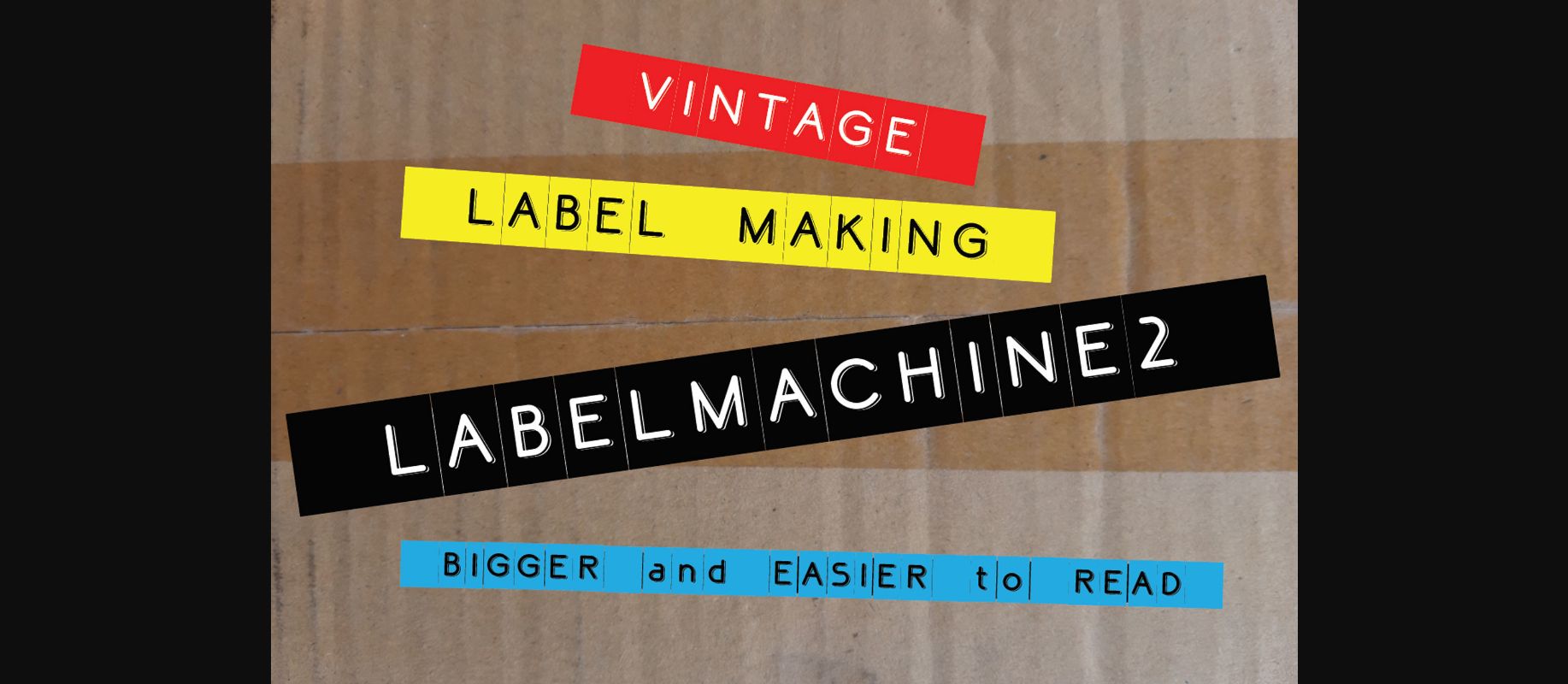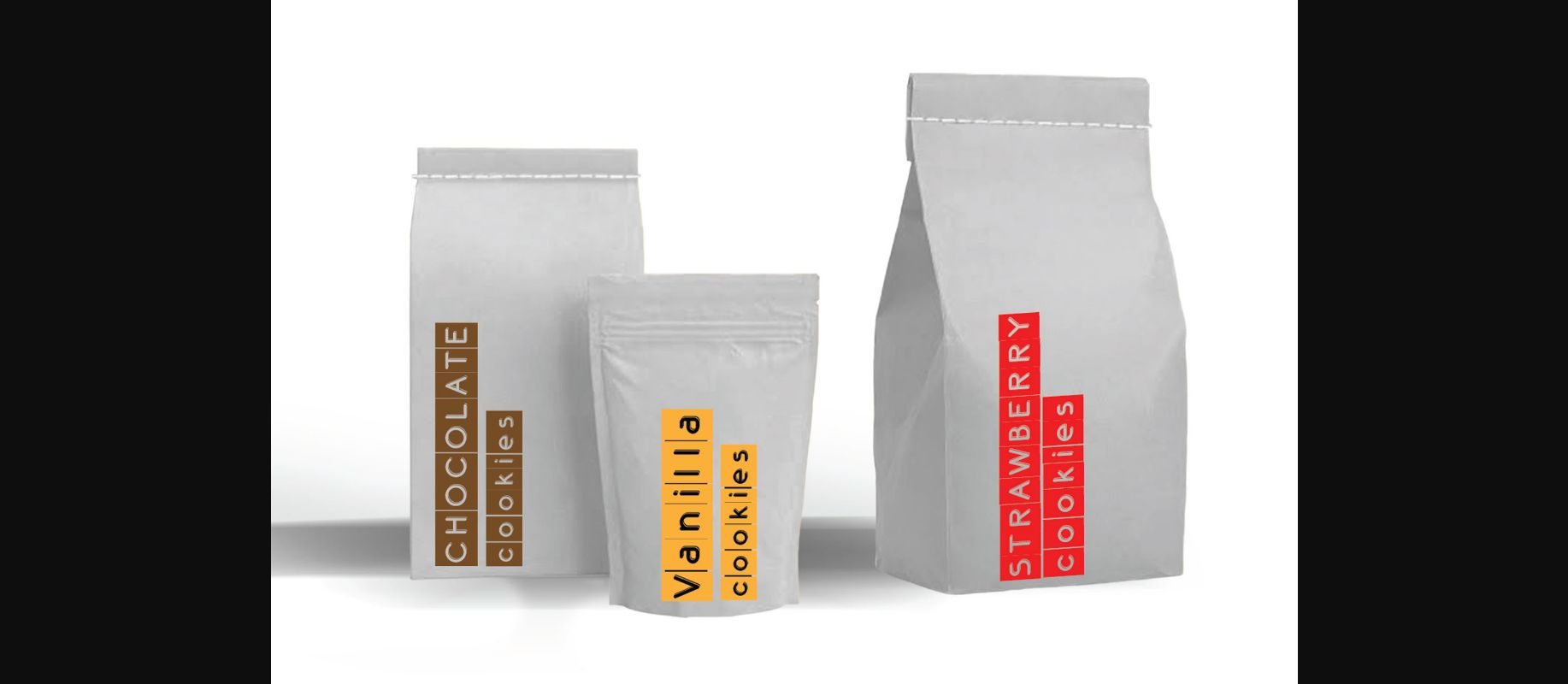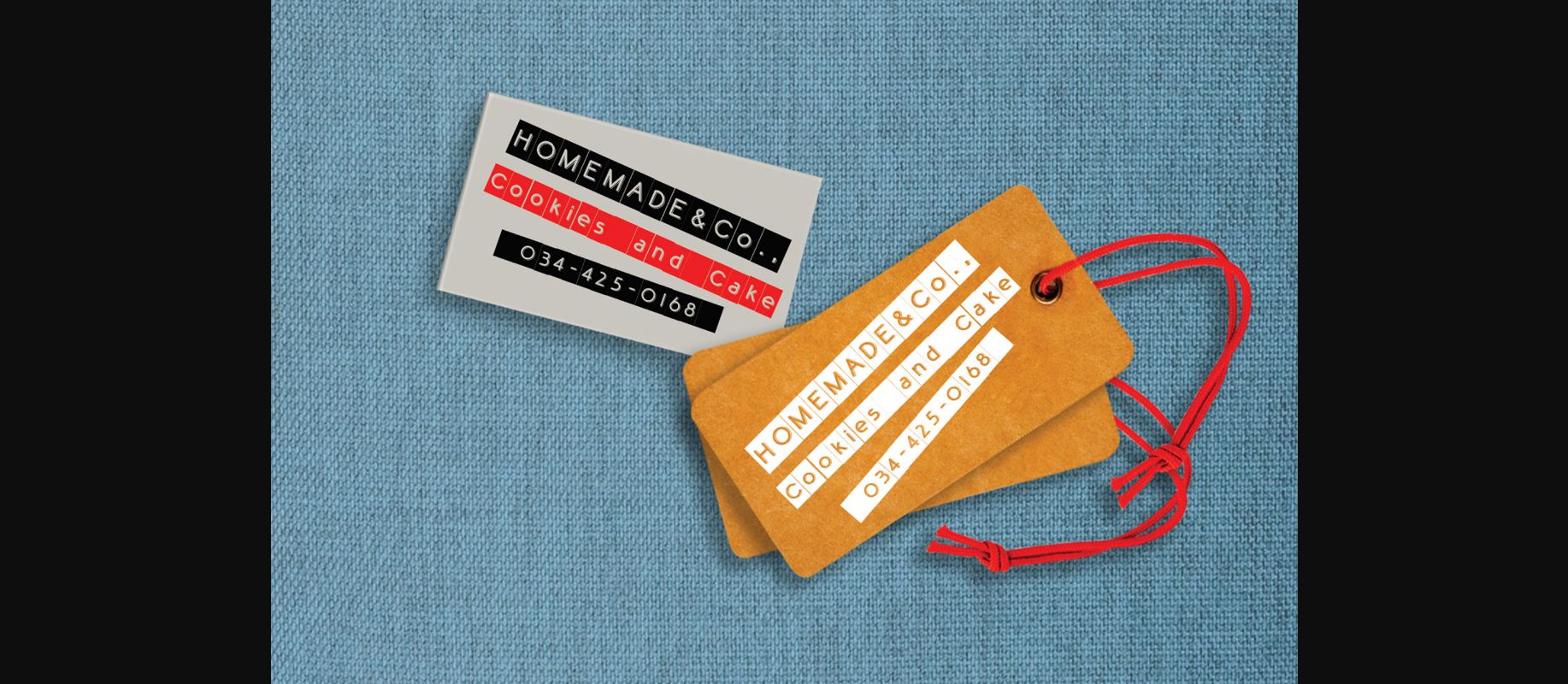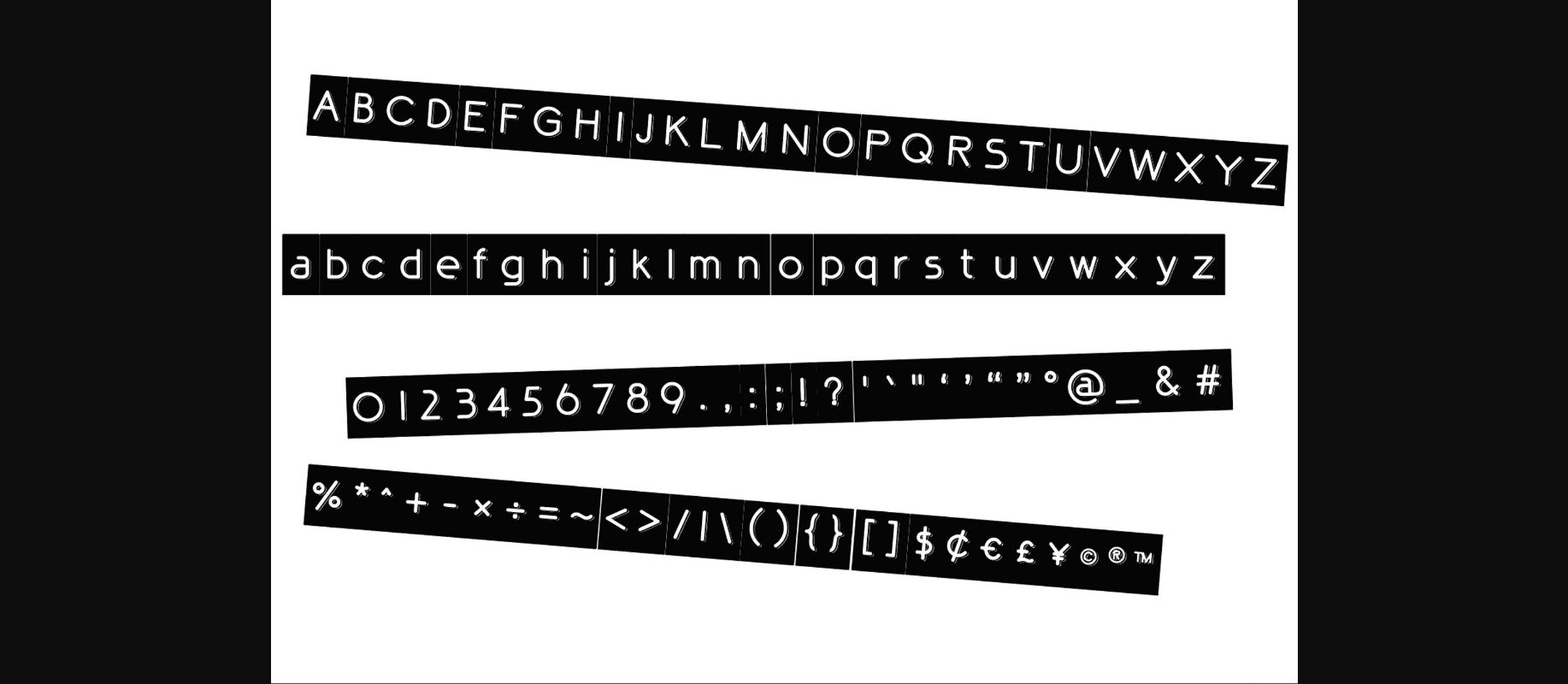
Labelmachine2 Font
About Labelmachine2 Font
Labelmachine2 is a cool and modern looking decorative font. No matter the topic, this font will be an incredible asset to your fonts’ library, as it has the potential to elevate any creation.